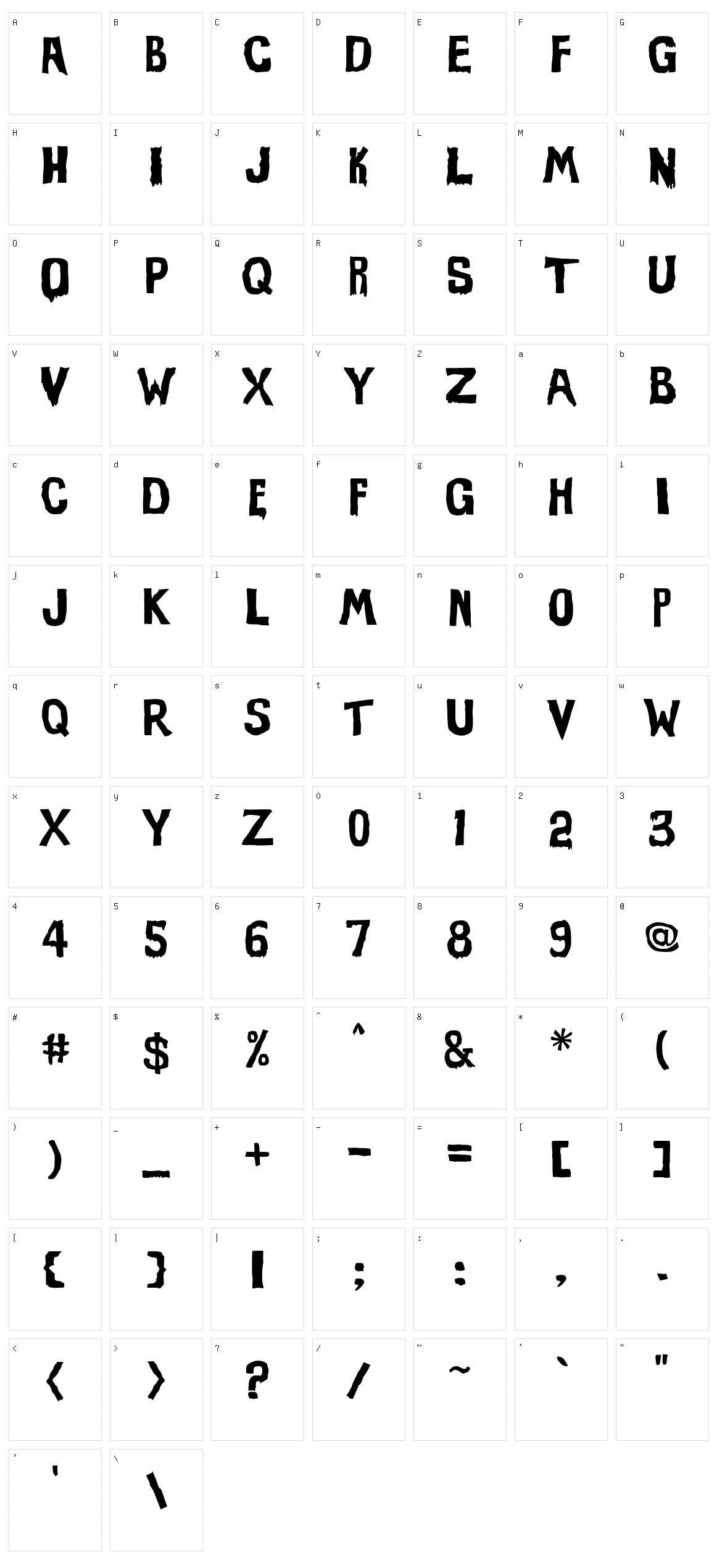
The free font Evil of Frankenstein is carefully designed by Brain Eaters Font Co., showcasing a thoughtful balance of creativity and usability and falls under the Horror font style. When you download the ZIP file, it contains only 171.14 KB of font files, making it lightweight and quick to download. Please review the license details below to understand permitted usage and distribution rights. If license information is not available, we recommend using this font for personal projects only or contacting the author directly for commercial usage permissions.